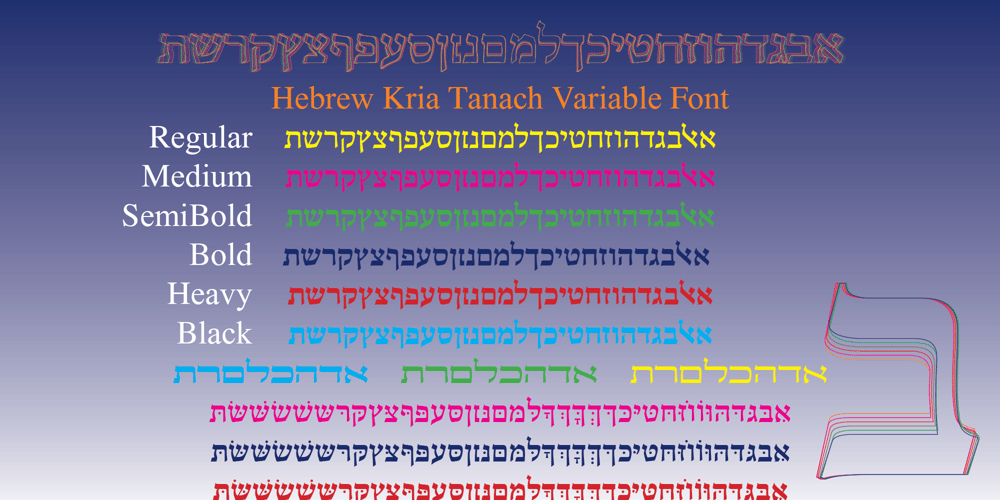
Hebrew Kria Tanach VF
Hebrew Kria Tanach VF font
Hebrew Kria Tanach VF Font Family was designed by Sami Artur Mandelbaum and published by Samtype. Hebrew Kria Tanach VF contains 1 styles and family package options. This is a modern, wonderful, and beautiful font.This font is super readable and can be used from Posters to a Hebrew Bible.The readability of this font is amazing.This font has the modern Hebrew punctuation: Shevana, Kamatz Katan, Dagesh Hazak, and Cholam Chaser.The first Hebrew Variable font with all Trop and Nikud!